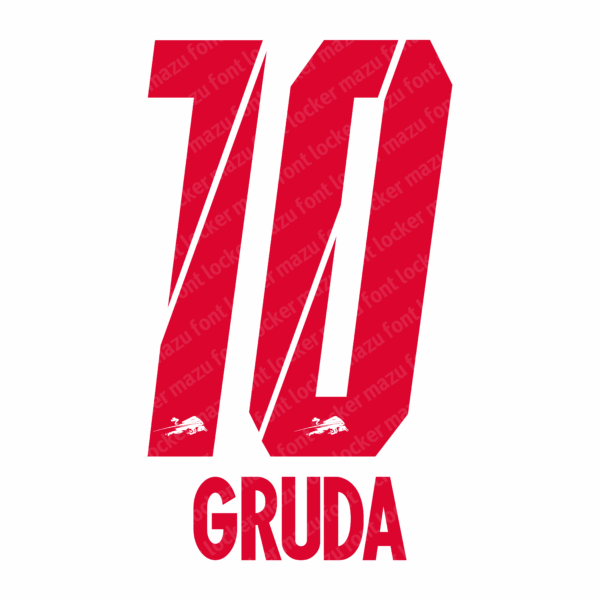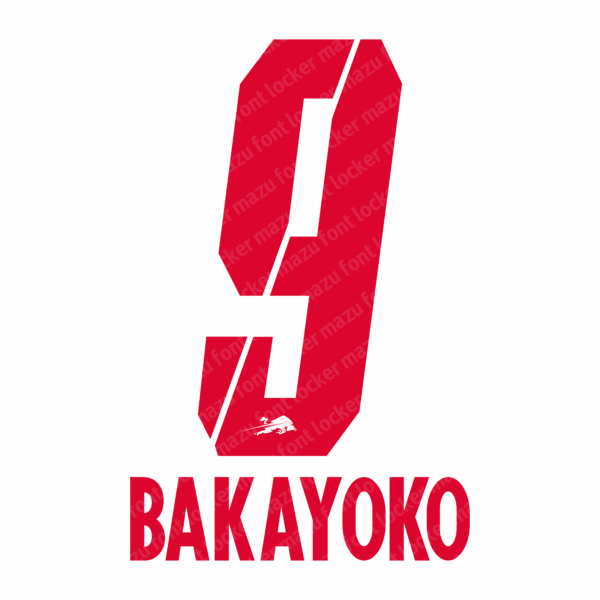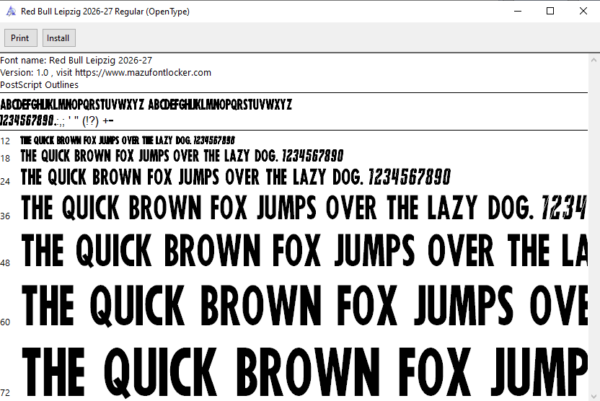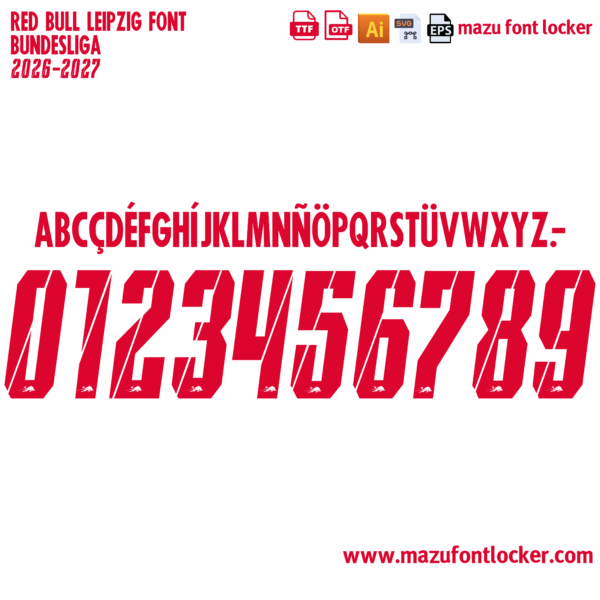
Red Bull Leipzig 2026-2027 Font Vector – Energetic Red Bull Kit
Get the official Red Bull Leipzig 2026-2027 jersey look with this premium vector font set. This high-quality font is meticulously crafted to replicate the authentic lettering and numbering used by Red Bull Leipzig for the 2026-2027. Perfect for kit designers, fans, and professional sportswear customisation, it ensures a sharp, match-day finish for both digital and print projects.
Red Bull Leipzig 2026-2027 Font Vector – Authentic Jersey Lettering
Red Bull Leipzig 2026-2027 Font is a high-quality football jersey font vector created to replicate the official lettering and numbering style used during the iconic New 2026-2027 Season. Perfect for designers, football fans, and jersey customisation projects, this font set delivers an authentic and professional match-day appearance.
Inspired by the original Red Bull Leipzig 2026-2027 team kit, every letter and number has been carefully recreated to ensure accurate retro styling for both digital and print projects.
• Authentic 2016-2027 Red Bull Leipzig jersey lettering style
The authentic lettering style helps recreate the classic look of the Red Bull Leipzig 2026-2027 kit with professional accuracy.
Unlike generic jersey fonts, this set is designed with a strong focus on authenticity and accuracy. Every detail is based on the original match lettering style used during the 2026-2027 season, helping designers and collectors create realistic football shirt designs.
This Red Bull Leipzig 2026-2027 font vector set is designed for authentic football jersey customization and works perfectly for retro football projects, collector designs, and professional sportswear artwork.